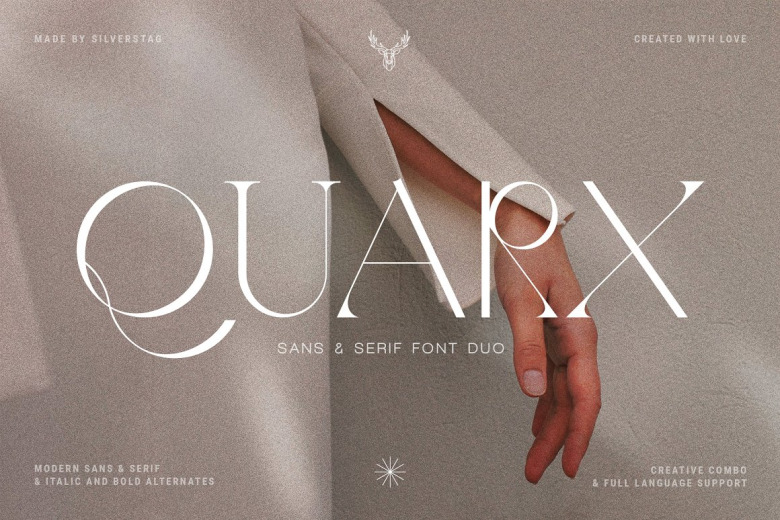
Quarx Font
Quarx is a slim, elegnat and stylish Sans & serif font. It has a beautiful and balanced character, that fits well with the large design pool. This font is PUA encoded which means you can access all of the glyphs and swashes with ease.
Quarx Sans & Serif Modern Font Duo